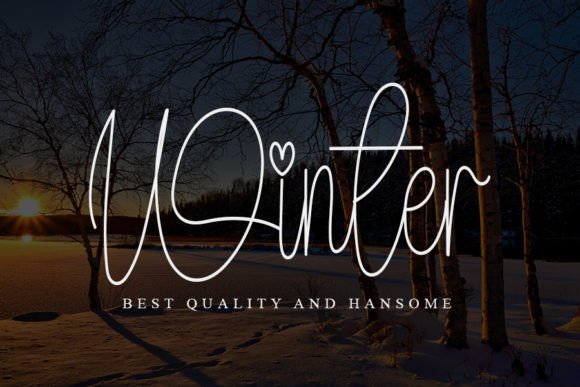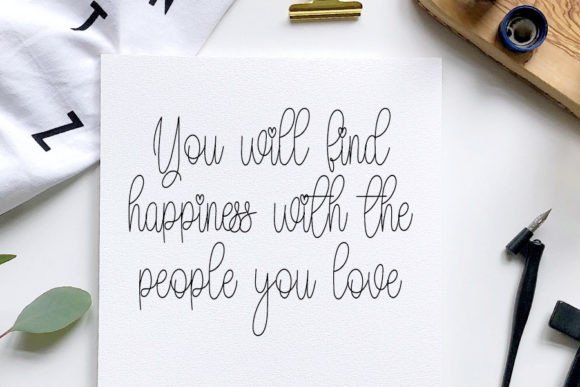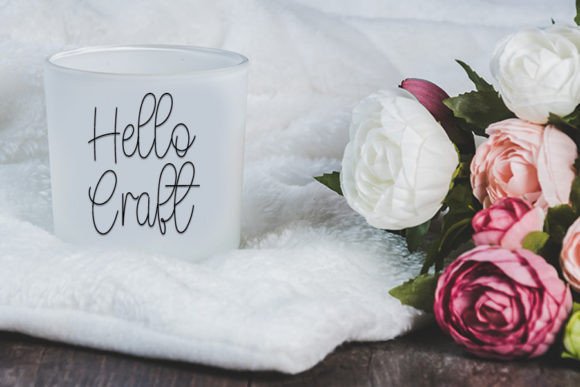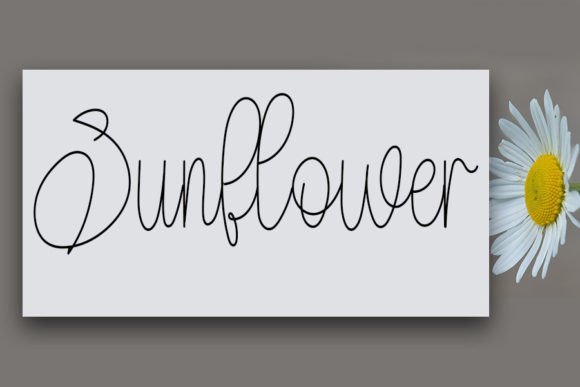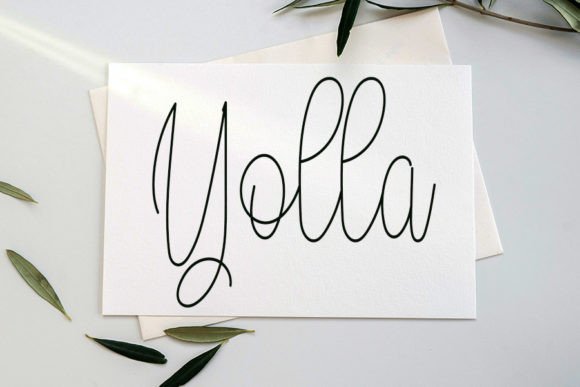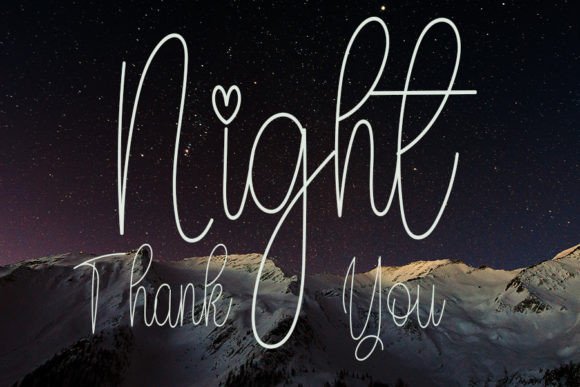
Winter Font
About Winter Font
Introducing “Winter,” a stylish handwritten font that brings a contemporary atmosphere and impeccable form to your projects. Inspired by timeless classic calligraphy, this font is balanced and varied, meticulously designed to enhance the beauty of your creative endeavors.
The stylish and contemporary vibe of “Winter” makes it suitable for a wide range of applications. Whether you’re working on branding, invitations, posters, or any other design project, this font adapts seamlessly, adding a touch of elegance to your work.
One of the standout features of “Winter” is its PUA encoding, providing easy access to all the amazing glyphs and ligatures. This feature empowers you to fully explore and customize the font, allowing you to add unique details and flourishes to your designs effortlessly.
Envision “Winter” elevating the beauty of your projects, from stylish branding materials to captivating posters. The versatility of this font, coupled with its contemporary appeal, makes it a valuable asset for your creative endeavors.
In summary, “Winter” is not just a font; it’s a stylish design element that brings contemporary elegance to your projects. Embrace its balanced and varied form confidently, knowing that the PUA encoding feature unlocks a world of creative possibilities. Let “Winter” be the choice that enhances the visual appeal of your designs, making them truly stand out.